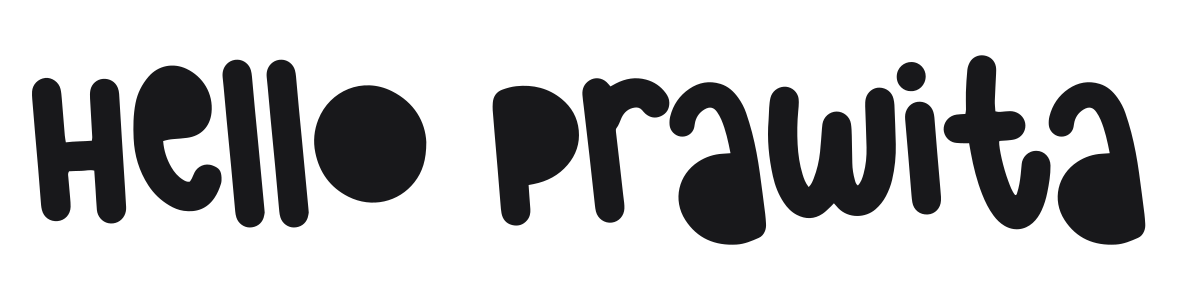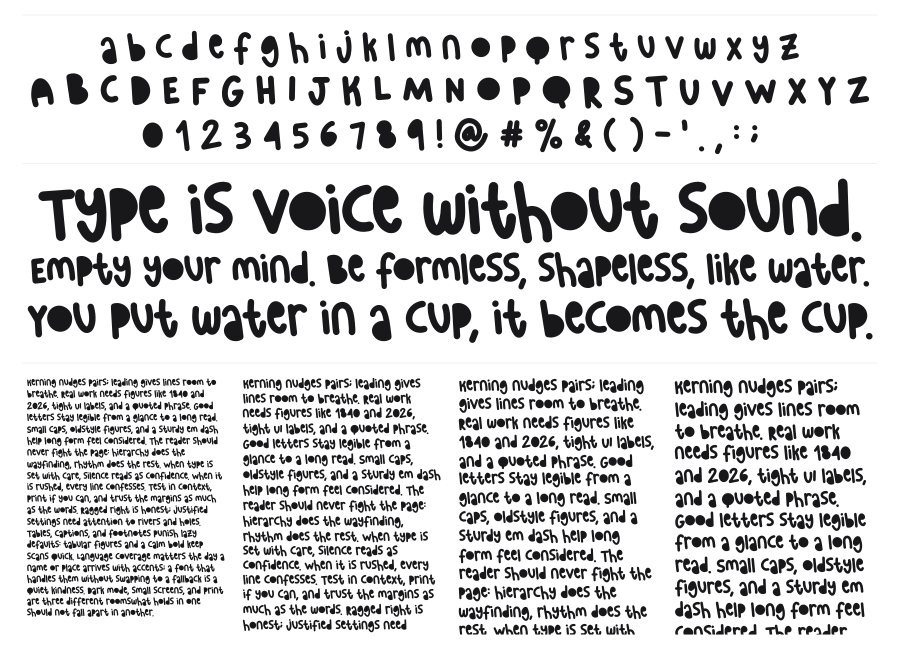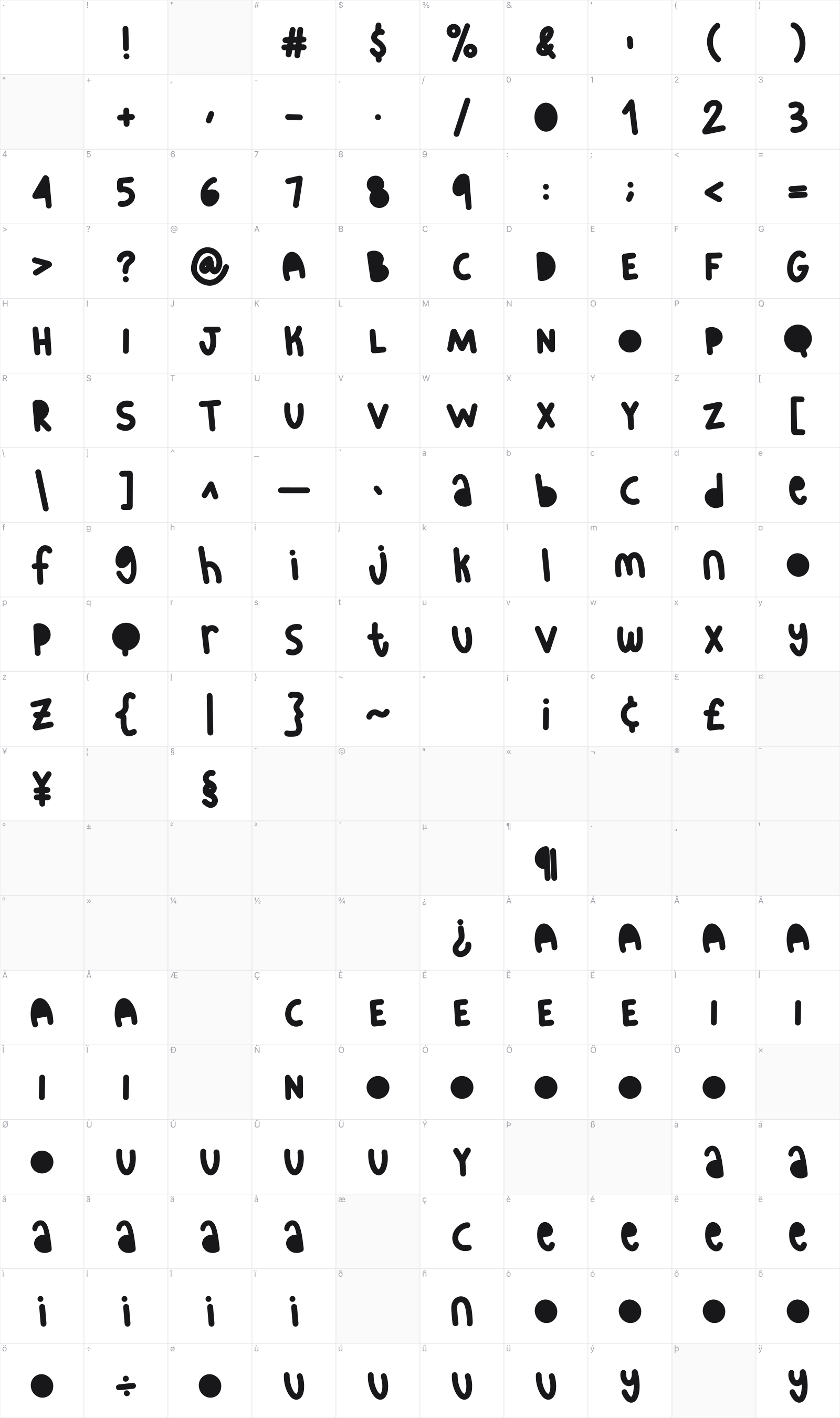
Hello Prawita
Hello Prawita is a bold, bubbly rounded sans with an unmistakably hand-lettered character. The letters wobble just enough in size and baseline to feel drawn rather than typed, giving it genuine warmth and spontaneity. It works best large, where its chunky curves and circular counters really come alive.